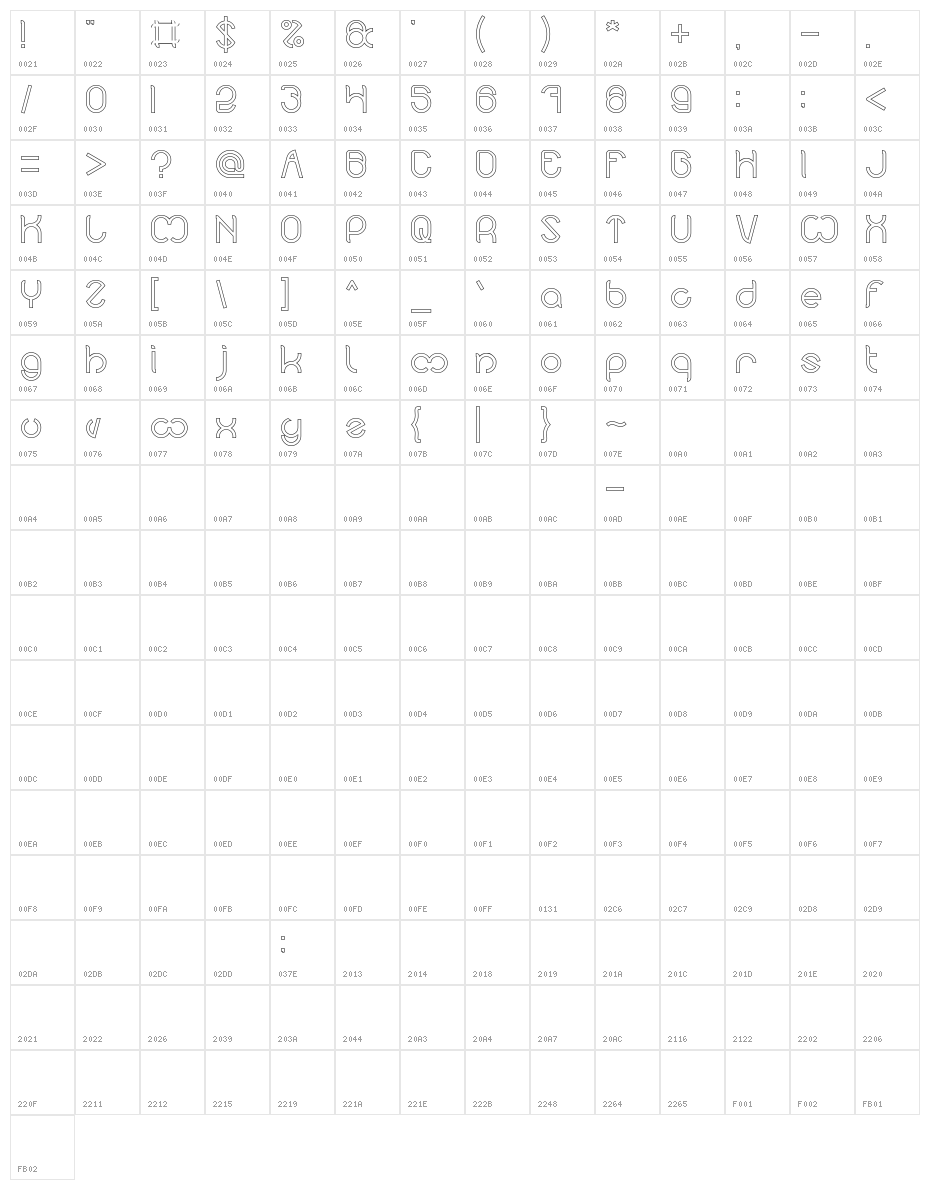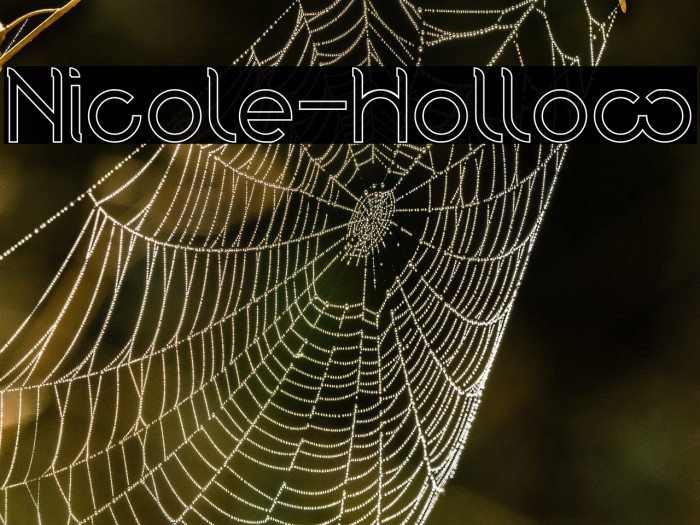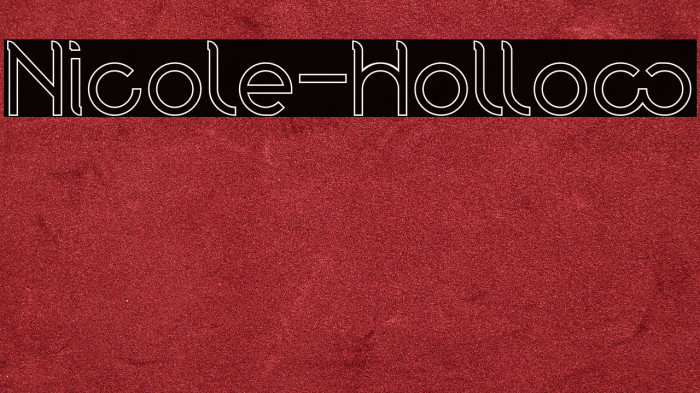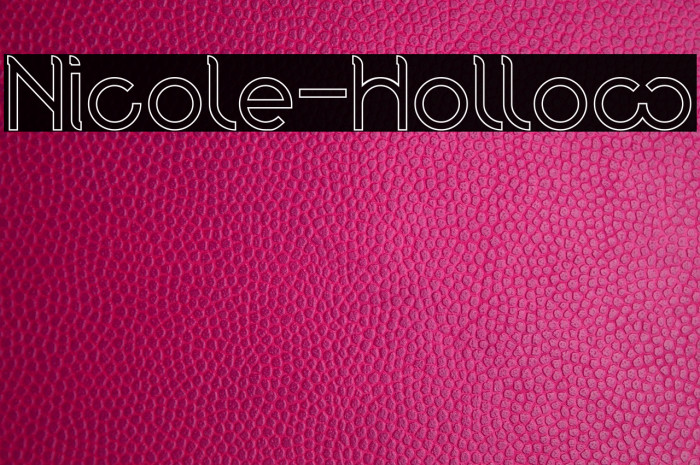
Nicole-Hollow Font
Nicole-Hollow Description
This font features a unique hollow design with a modern and futuristic aesthetic. Each character is outlined, creating a sense of openness and lightness. The uppercase and lowercase letters maintain a consistent geometric style, with rounded edges and smooth curves. The numbers and special characters follow the same design principles, ensuring uniformity across all glyphs. This font's distinct hollow appearance makes it stand out, offering a creative twist on traditional typography.
NICOLE-HOLLOW UPPERCASE
NICOLE-HOLLOW LOWERCASE
NICOLE-HOLLOW OTHER CHARS
| Proposed Projects | Ideal for branding, posters, digital art, and futuristic-themed designs. |